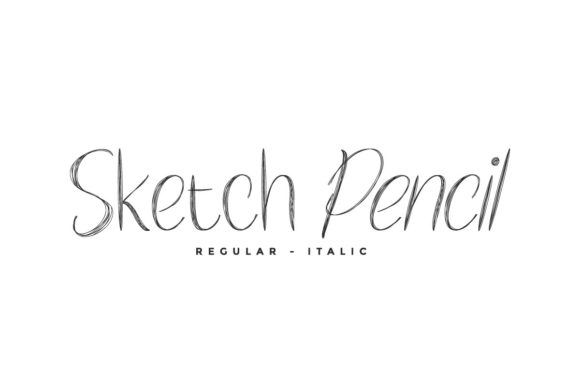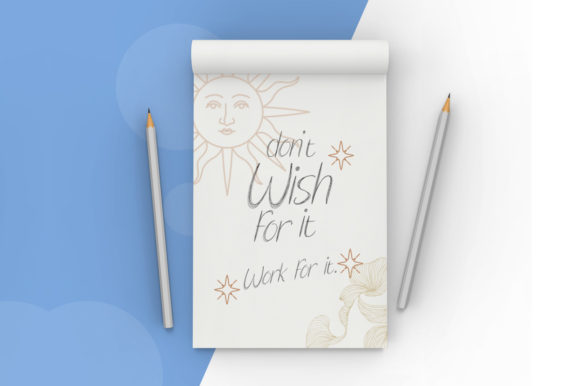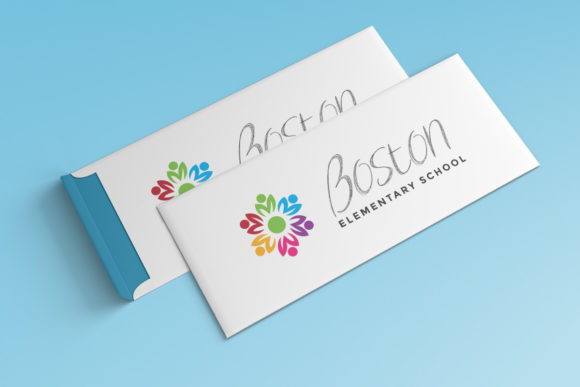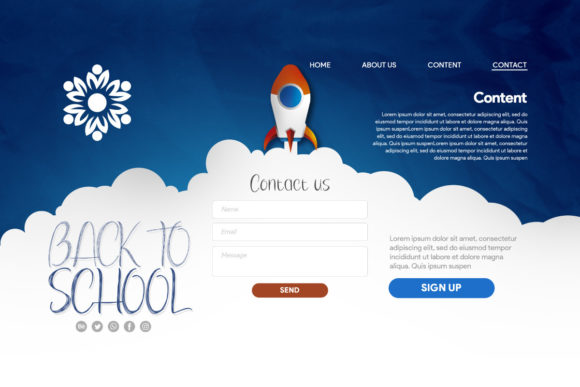
Sketch Pencil Font
About Sketch Pencil Font
Sketch PencilĀ is a cute and simple lettered handwritten font that can be used for all chalkboard quotes or teaching material! Its authentic look will add a personal and realistic feel to your designs.